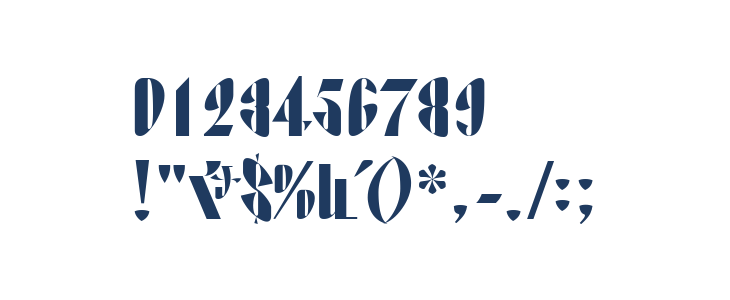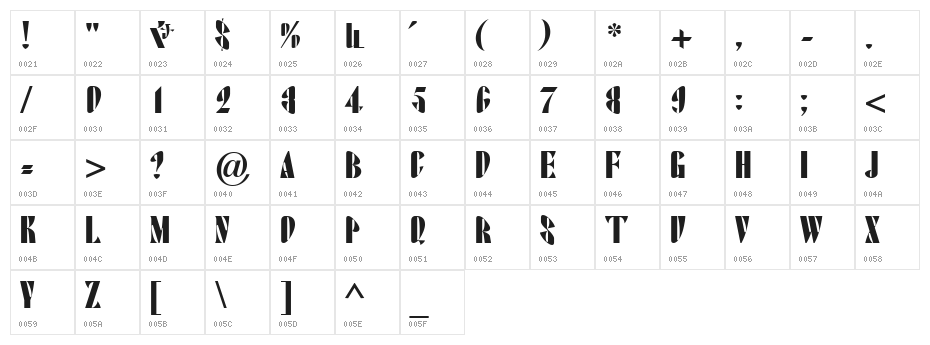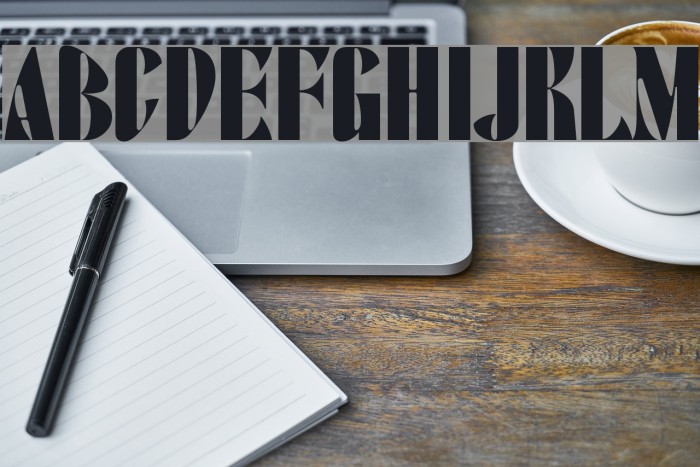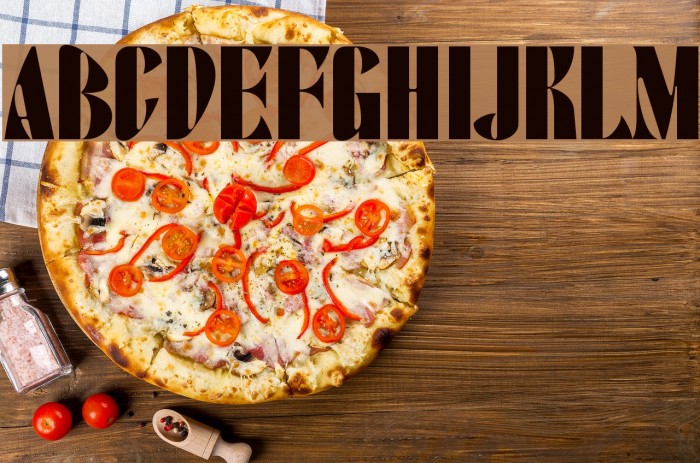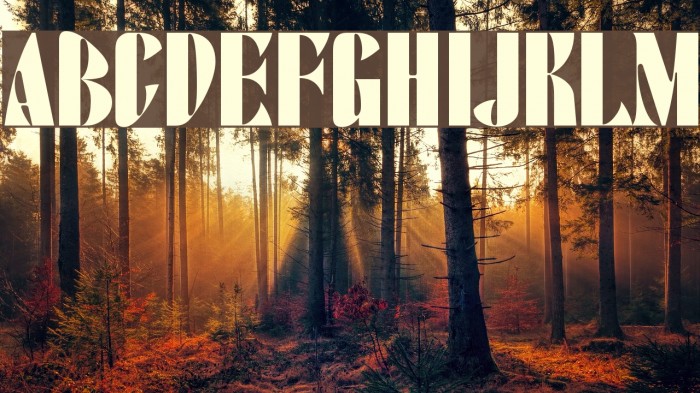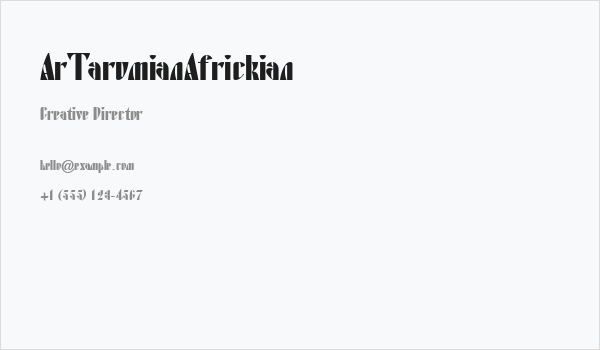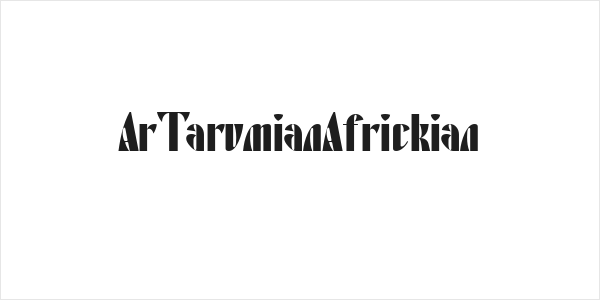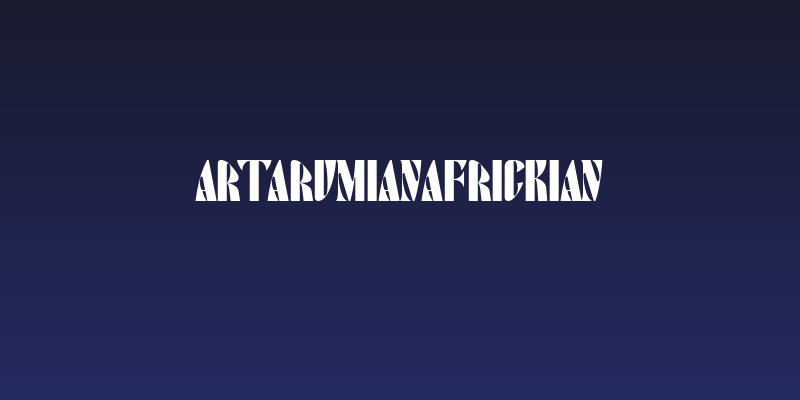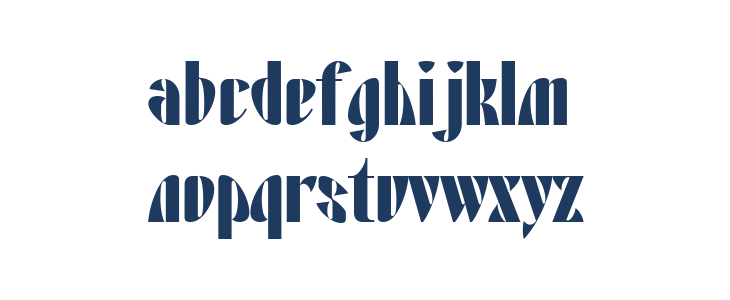
ArTarumianAfrickian Font
ArTarumianAfrickian Description
This font features a bold and striking design with high contrast between thick and thin strokes. The characters are uniquely stylized with sharp angles and geometric shapes, creating a dynamic and eye-catching appearance. The uppercase letters are particularly bold, while the lowercase letters maintain a consistent style with slightly more curves. Numbers and special characters follow the same design principles, ensuring uniformity across the set. The overall look is modern and artistic, making it suitable for projects that require a strong visual impact.
| Overall Style | Modern, Artistic |
| Proposed Projects | Ideal for branding, poster design, album covers, and any project needing a bold, artistic touch. |